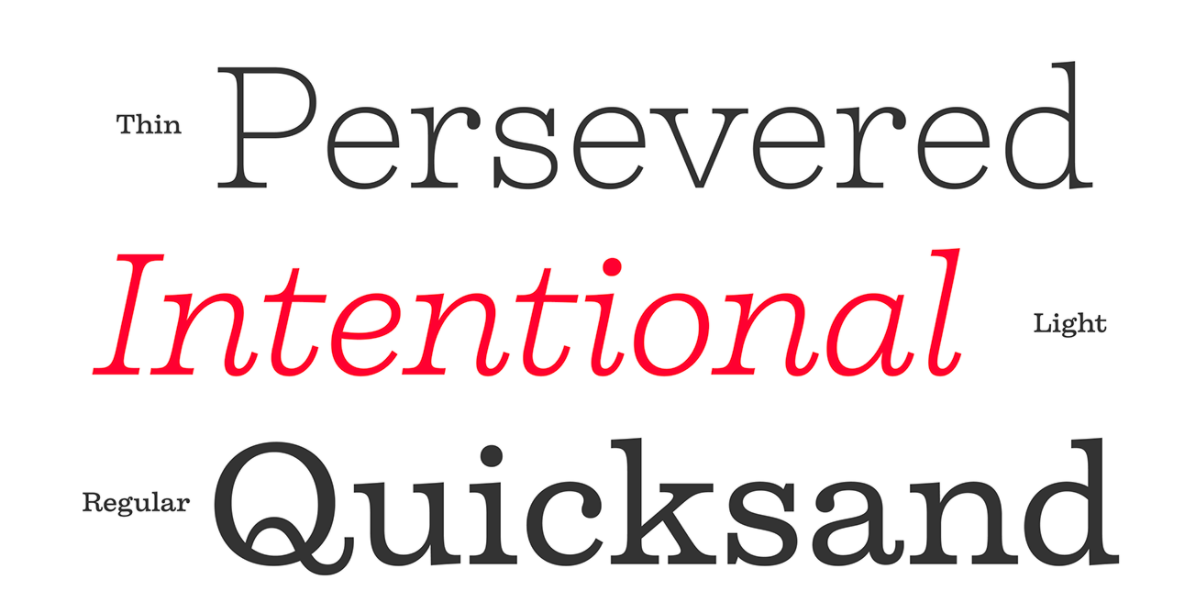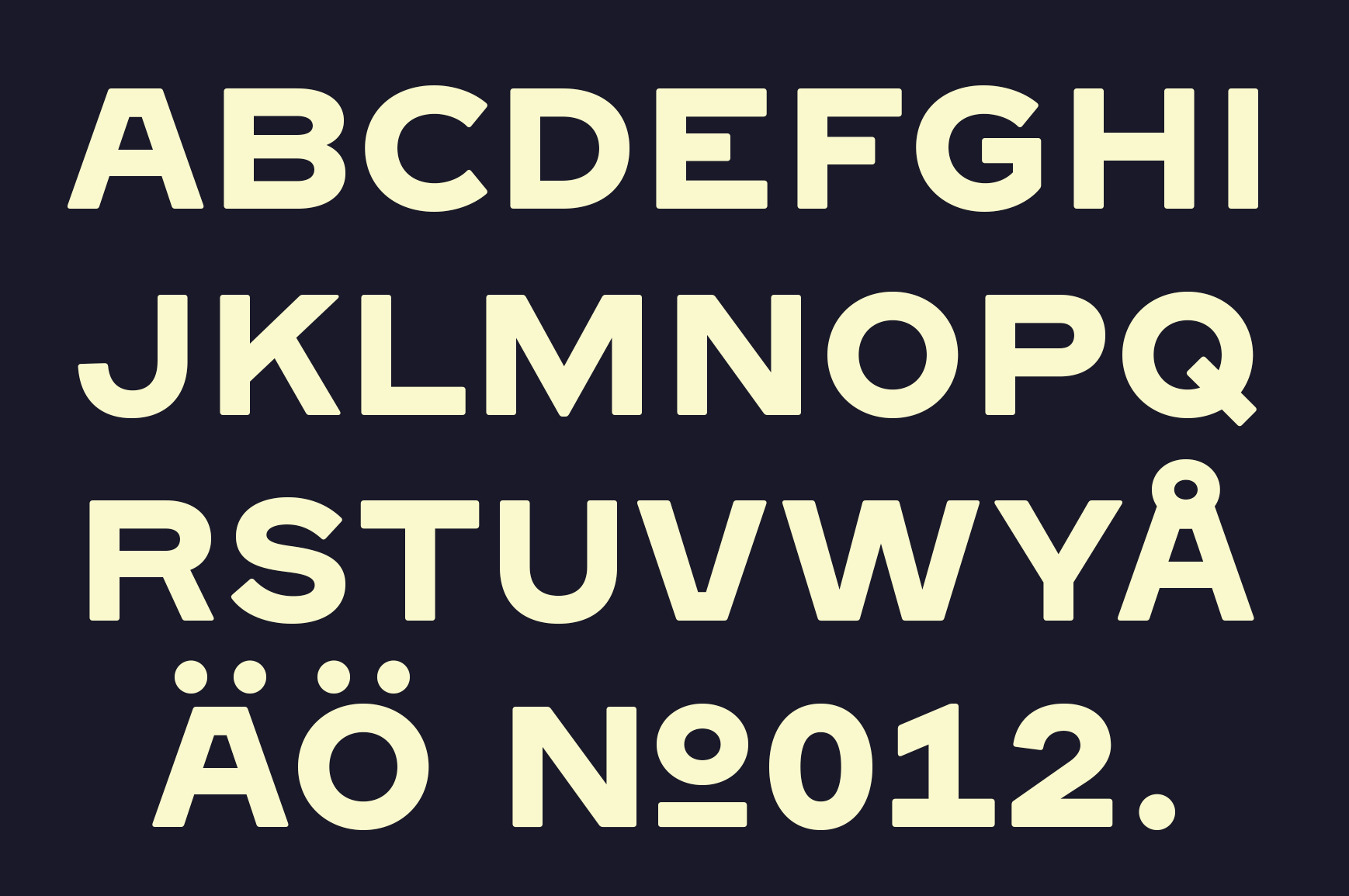
Teddy Derkert
Swedish designer based in Stockholm. His typefaces:
• Egosans (2012).
• The slightly curved display sans serif Aprikos (2016).
• Nando (2016). Slab serif.
• At TypeParis 2017, he designed the angular text typeface Kiosque. It is in the garalde family but features ballerina shoe terminals.
• Rise Sans (2017). Fat, bloated, rounded and gorgeous.
• Seger No. 12 (2017). All caps sans. Inspired by painted stall signs in Östermalms Saluhall in Stockholm dating back to 1888.
• Derk Grotesk (2017).
• Doughy (2018). Doughy (2018) is a soft and friendly display typeface with deep inktraps, tight spacing, round corners and descenders boldly forced above the baseline. Buy it here.
• Firelli (2020). A 14-style (+ variable) Clarendon-inspired slab serif text typeface published by Typejockeys.